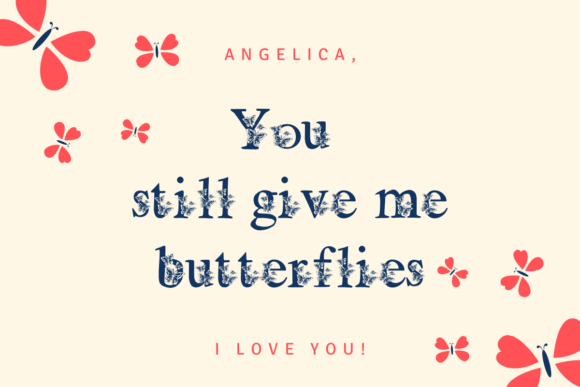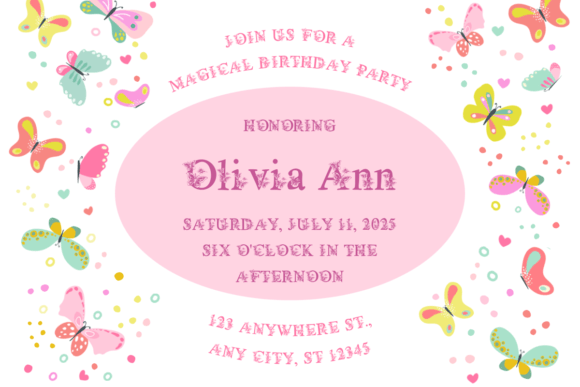
Butterfly Font
Imagine letters dressed up with delicate butterflies, perched on each curve and line. That’s Butterfly, a fancy font where every letter gets its own special butterfly friend. It’s like a playful garden on your page, adding charm and whimsy to your words.